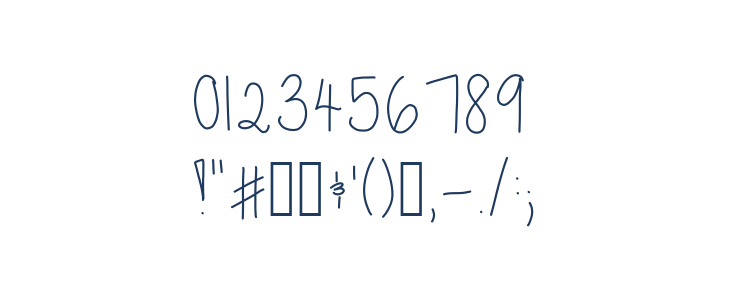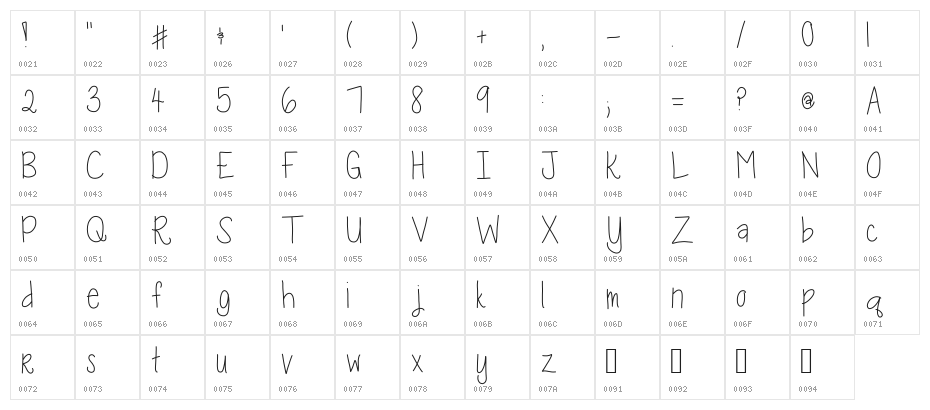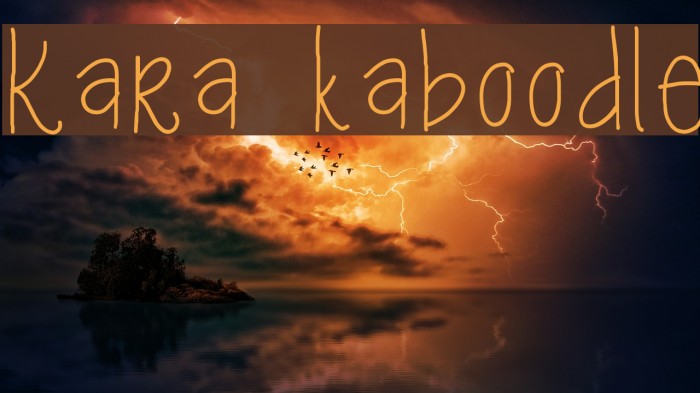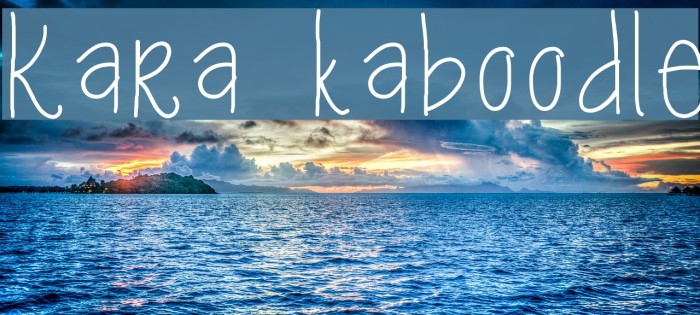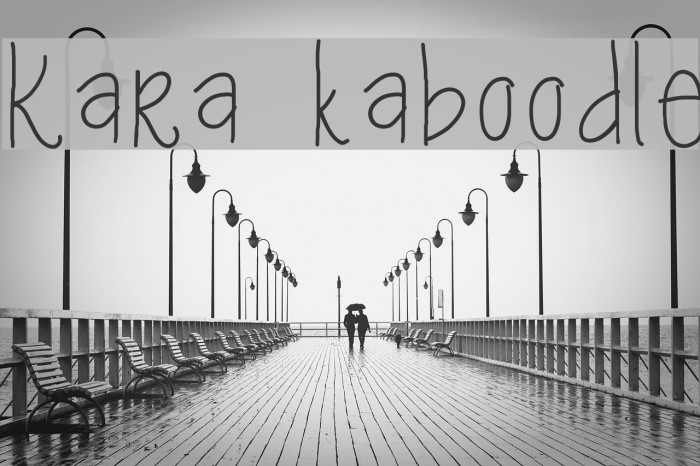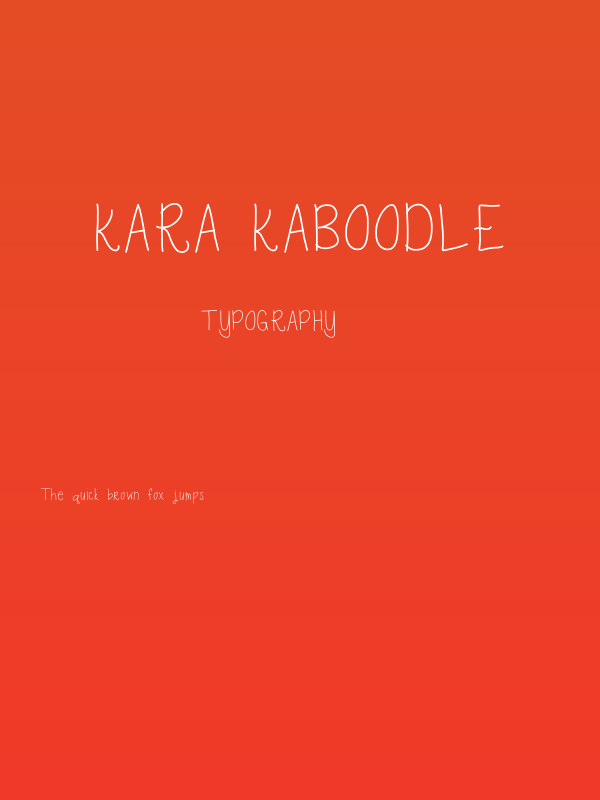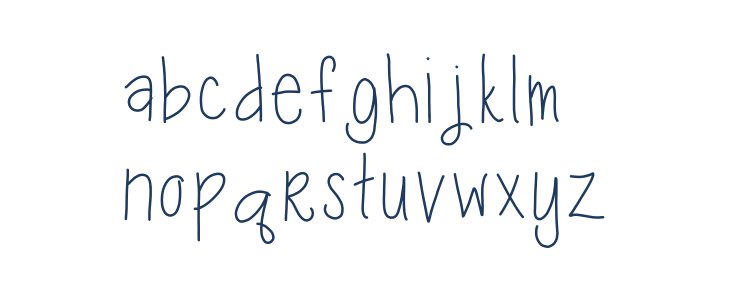
Kara kaboodle Font
Kara kaboodle Description
This font features a playful and casual handwritten style, characterized by its tall, narrow letters and slightly irregular strokes. The uppercase and lowercase letters maintain a consistent height, with a whimsical touch that adds personality. The numerals and special characters follow the same informal aesthetic, making the font suitable for creative projects. Its simplicity and charm make it versatile for various design needs, offering a friendly and approachable look.
| Proposed Projects | Ideal for greeting cards, children's books, personal blogs, and informal branding. |